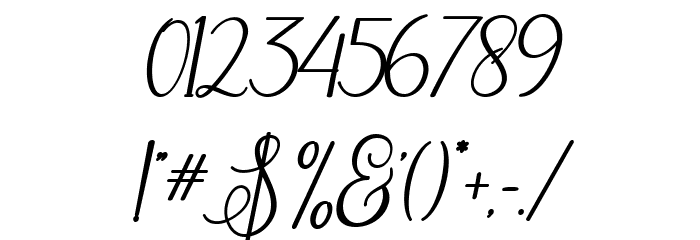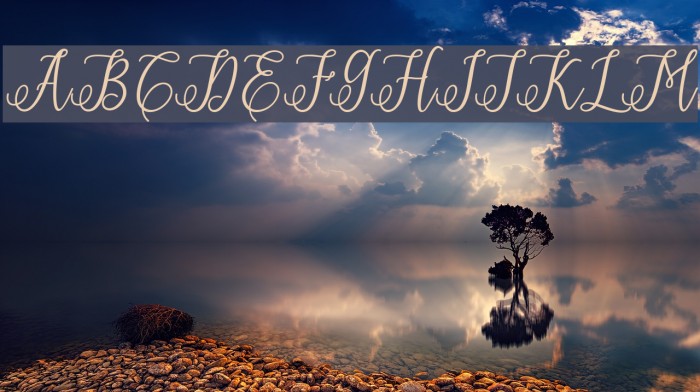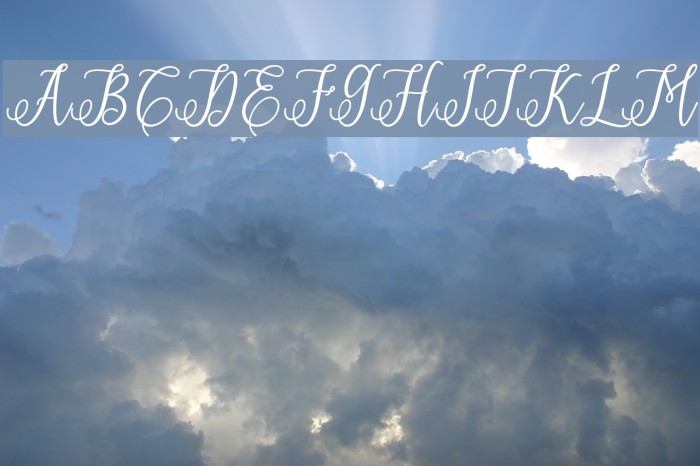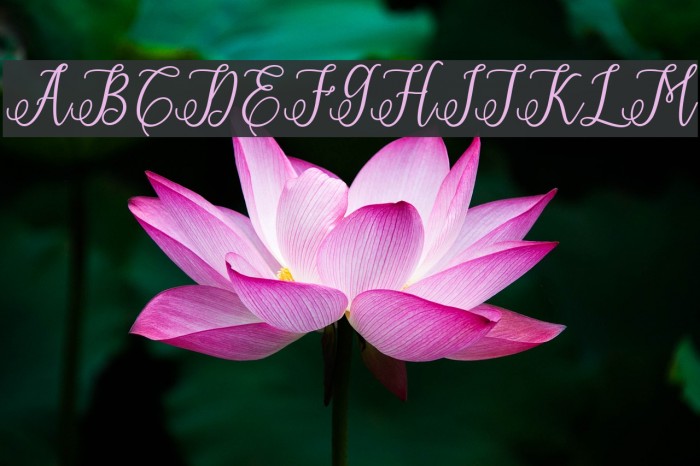
ErittaSlant-Bold Font
ErittaSlant-Bold Description
This elegant script font features a flowing, cursive style with a distinct slant, giving it a dynamic and sophisticated appearance. The uppercase letters are adorned with graceful loops and flourishes, while the lowercase letters maintain a smooth, connected flow. The numerals are stylish and consistent with the overall script theme, enhancing the font's cohesive look. Special characters are thoughtfully designed to match the font's elegant aesthetic, making it suitable for a variety of decorative purposes.
A slanted, elegant script font with flowing cursive letters and decorative flourishes from Uncategorized fonts.
- Proposed Projects: Ideal for wedding invitations, elegant branding, greeting cards, and decorative signage.
- Overall Style: Elegant, Decorative
- Use Case: Logos, Invitations, Decorative Text